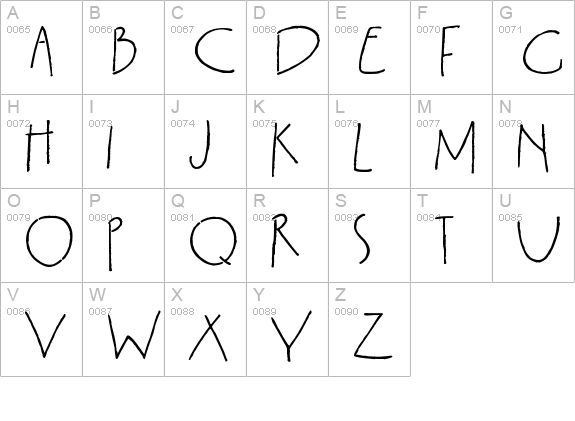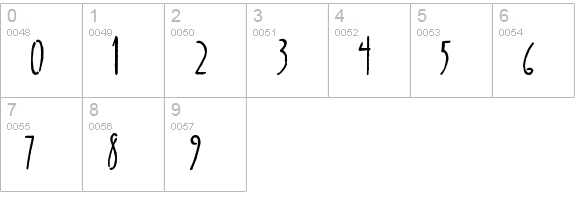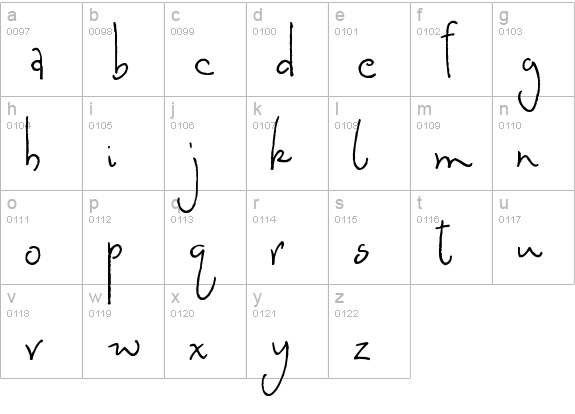
Smitten Kitten Font Details
Smitten Kitten font is a charming and whimsical typeface that will add a touch of playfulness to any design project. With its delicate curves and elegant letterforms, this font is perfect for creating invitations, greeting cards, and other projects that require a touch of sweetness. The best part? Smitten Kitten font is available for free download at FontsMarket.com! Whether you're a professional designer looking for a new addition to your font collection or someone looking to add a special touch to a personal project, Smitten Kitten font is the perfect choice. Download it today and let your creativity run wild with this delightful and versatile typeface.